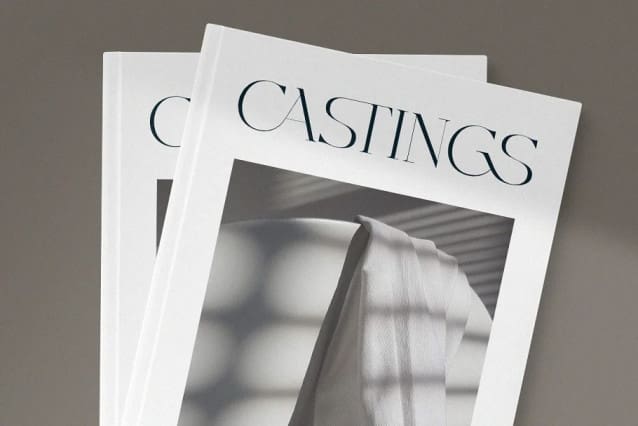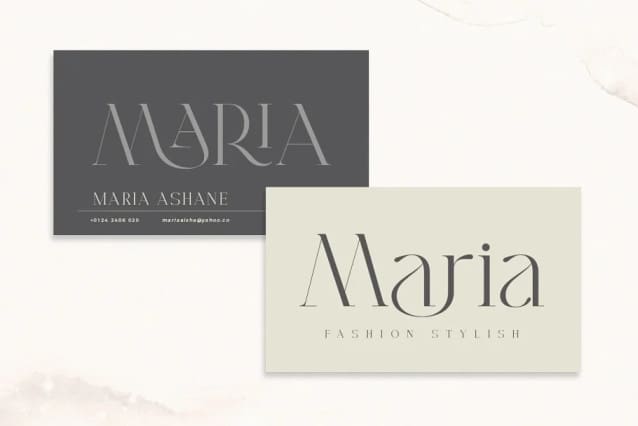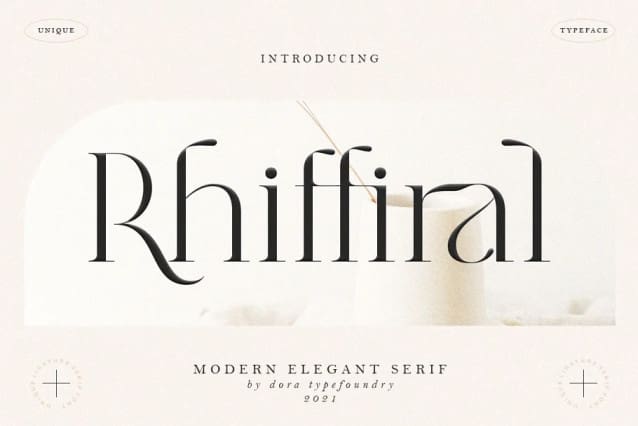
Rhiffiral Font
Rhiffiral Font is a modern serif font to apply to many graphic design projects or a classy editorial, a unique high contrast and light binding style for your upcoming projects. for feminine logo signs, fashion & editorial design heads, branding projects, Apparel Branding, packaging, titles magazines, advertisements, T-shirts, postcards and other special occasions.